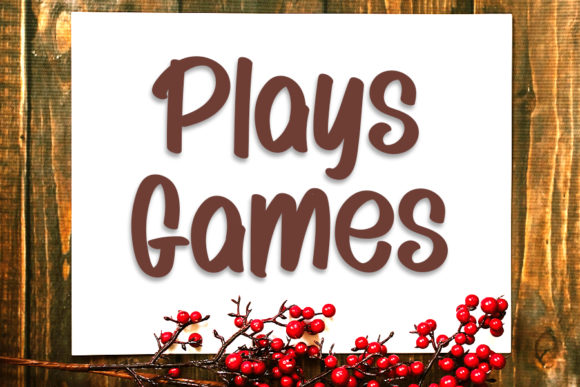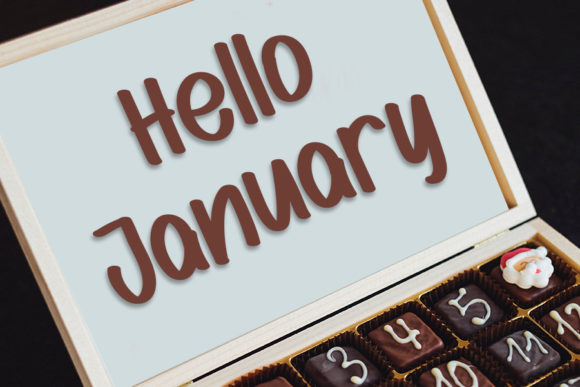
Well Done Font
db-ku.com - Script & Handwritten -- Well Done is a relaxed and beautiful paint brush handwritten font. It can be used for various purposes such as logos, wedding invitations, headings, t-shirts, letterhead, signage, labels, news, posters, badges and so much more.